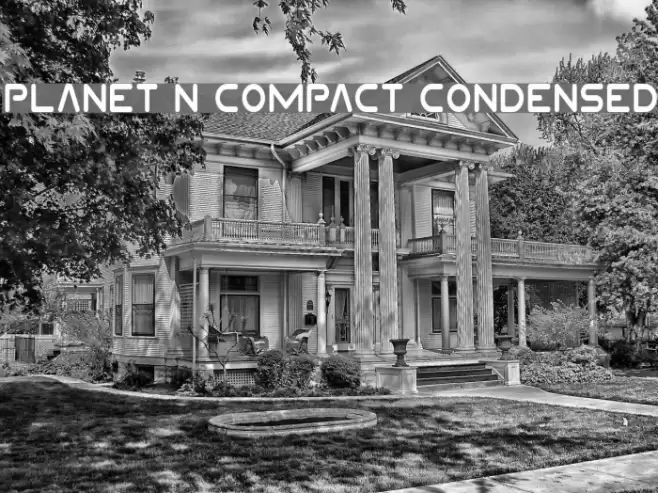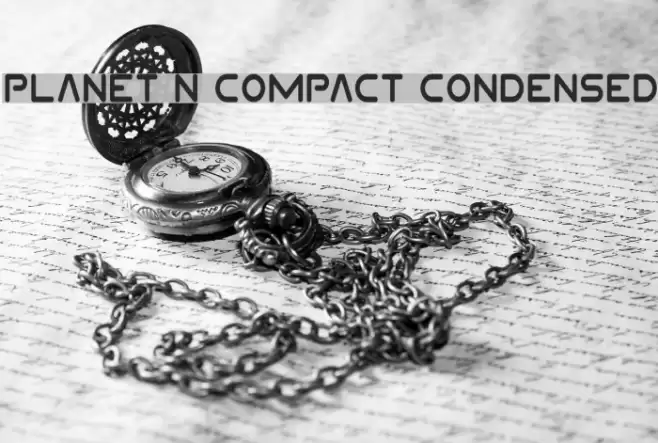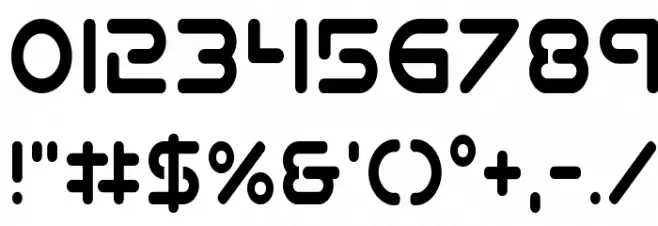
Planet N Compact Condensed Font
Planet N Compact Condensed Description
This font features a modern, geometric style with rounded edges and a compact, condensed form. The characters are bold and uniform, creating a cohesive and streamlined appearance. The design is clean and minimalistic, making it suitable for contemporary projects. The uppercase and lowercase letters maintain a consistent height, contributing to the font's uniformity. Numbers and special characters are designed with the same rounded and bold characteristics, ensuring a harmonious look across all text elements.
A modern, geometric font with rounded edges and a compact, condensed style from Sci-fi fonts.
- Proposed Projects: Ideal for technology branding, modern advertising, and digital interfaces.
- Use Case: Headlines, Logos, Digital Interfaces